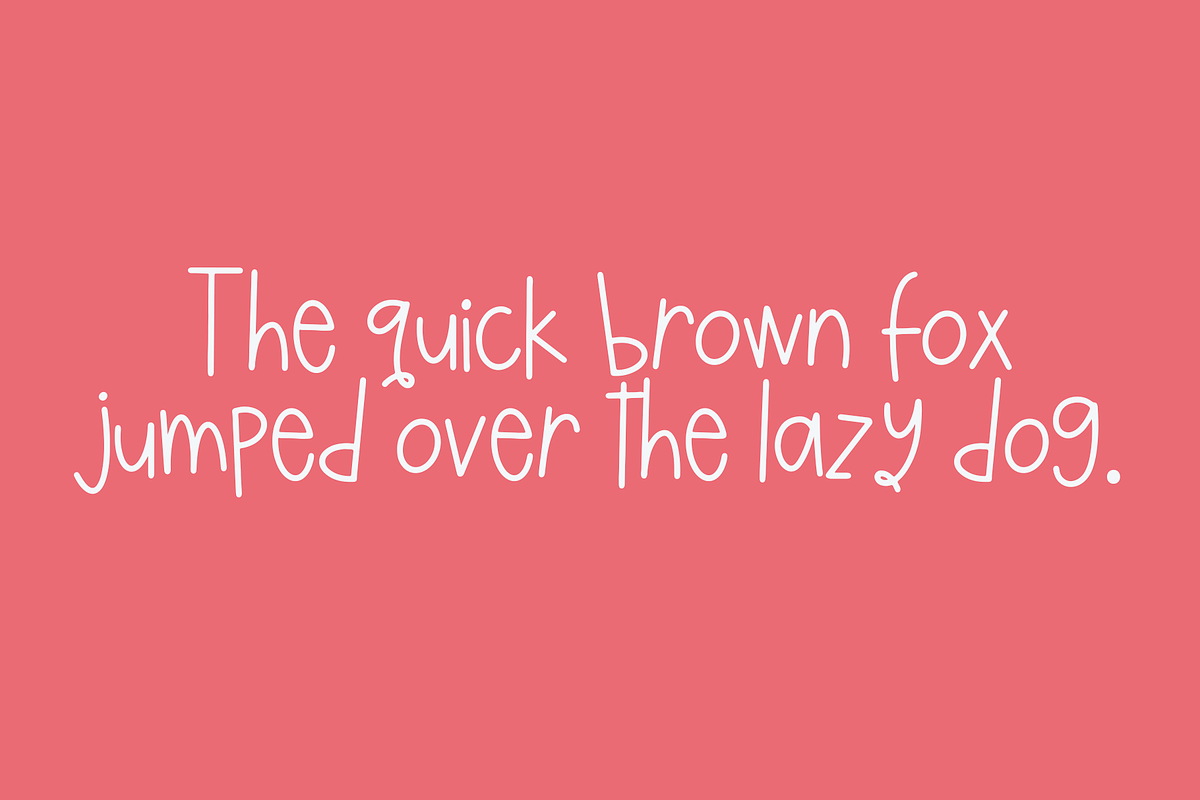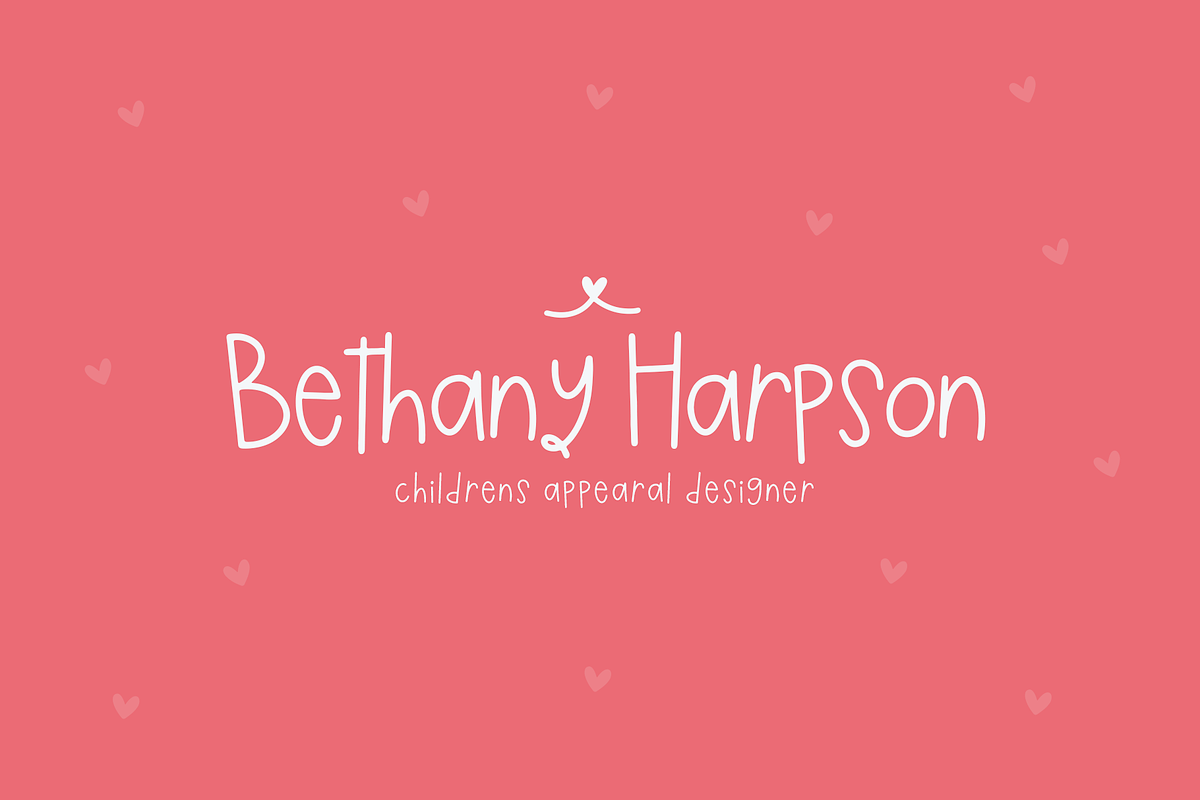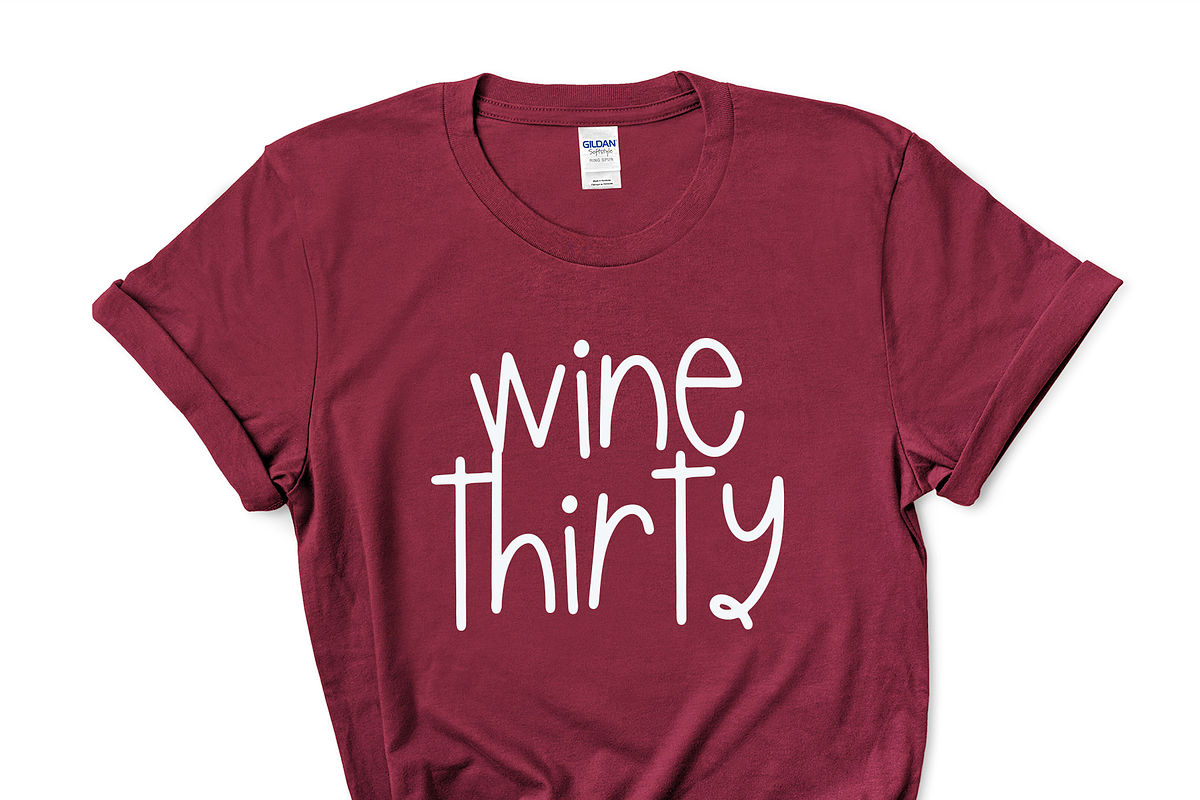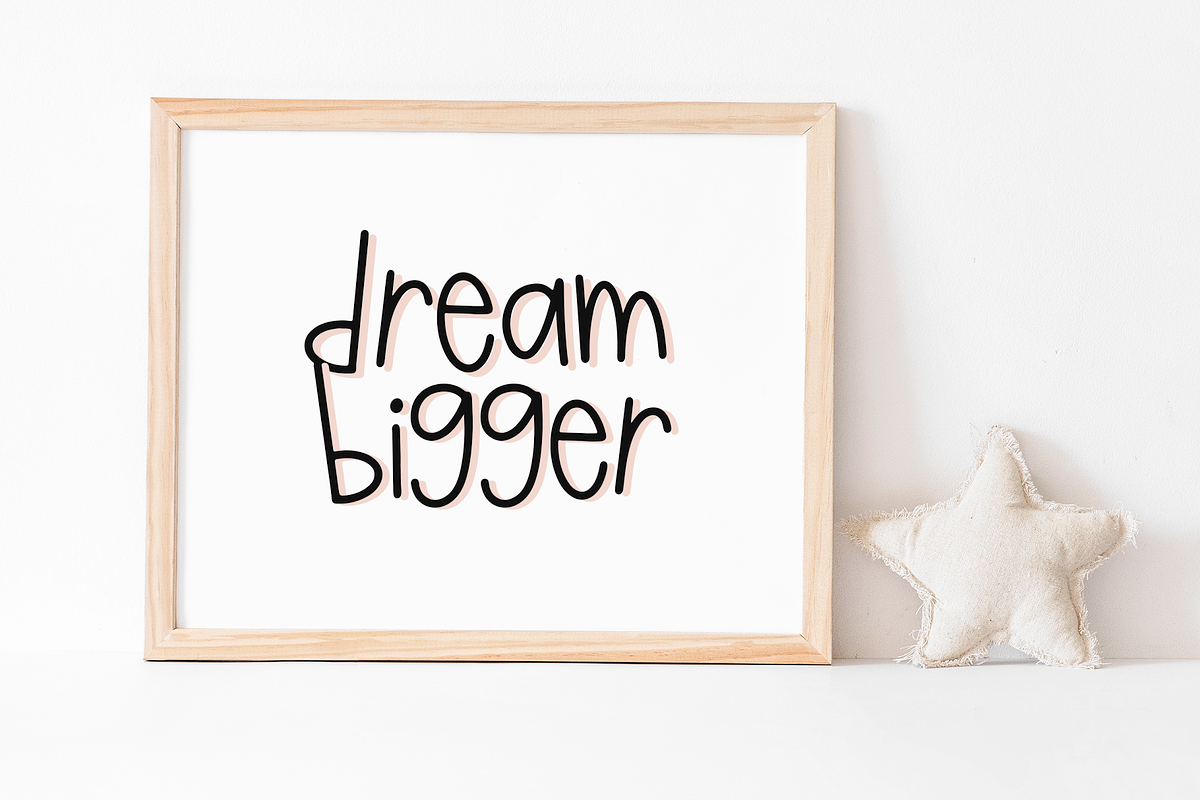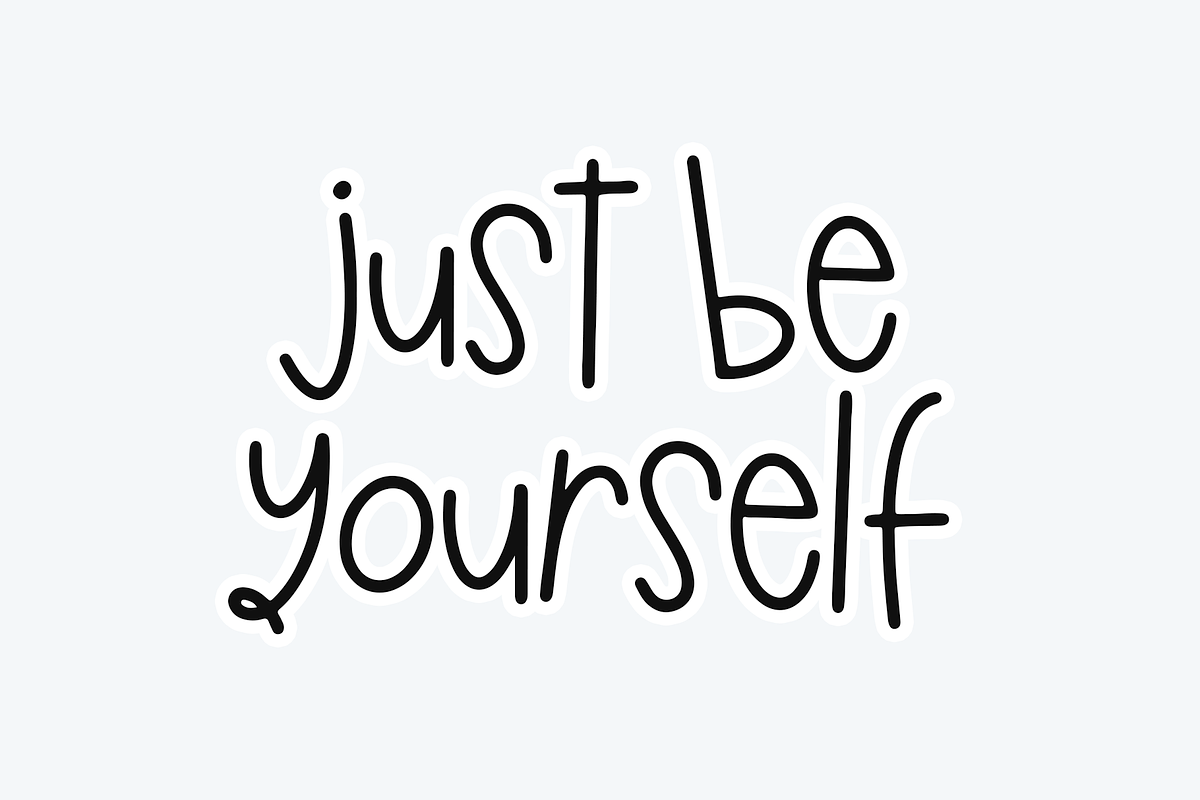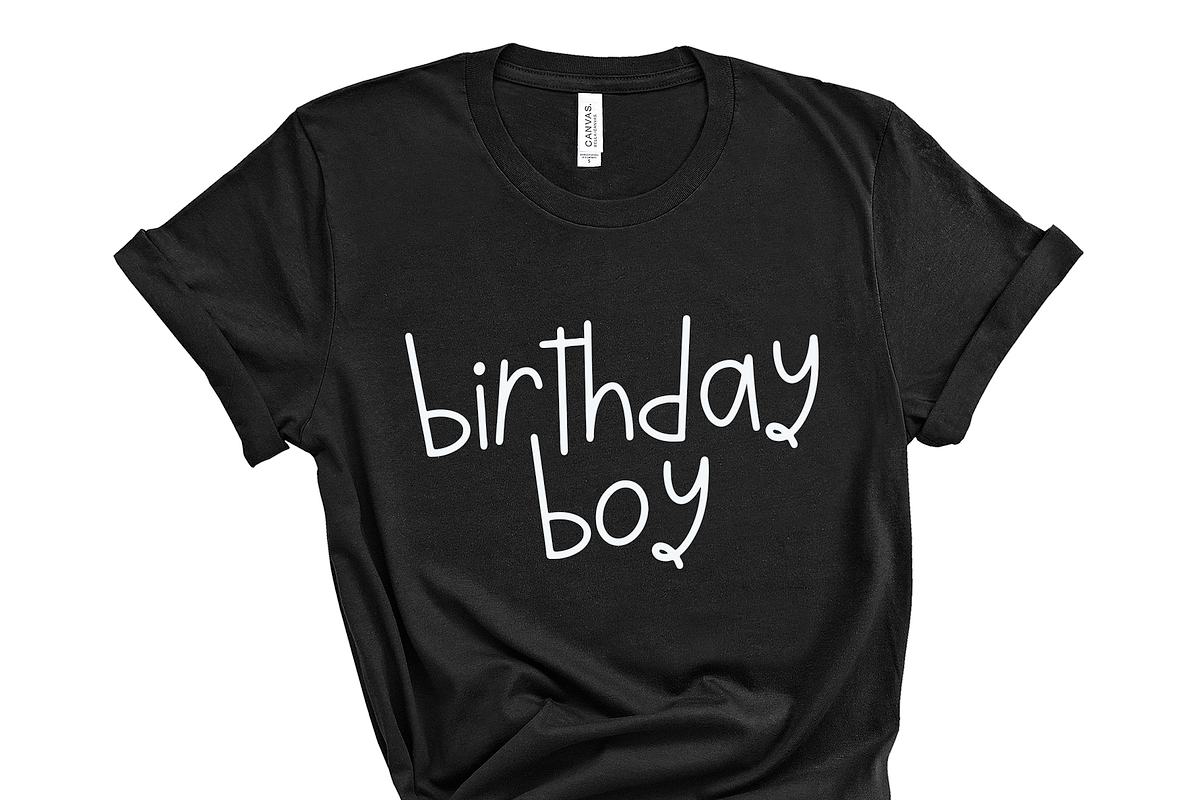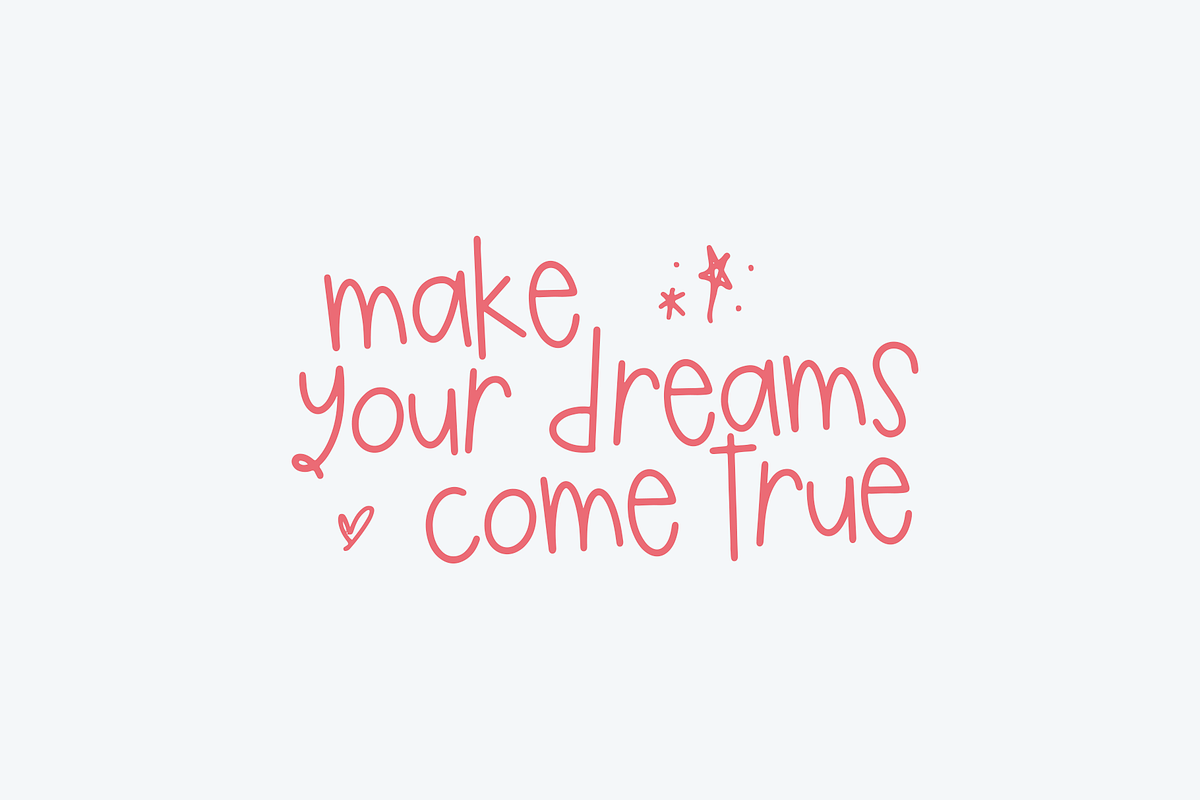
Kiwi Lemonade | Handwritten Font
Kiwi Lemonade is a fun and quirky handwritten font!
This font is perfect for branding, logos, svg files, shirts, signs, children's decor and more!
Kiwi Lemonade | Handwritten Font by KA Designs fits naturally into Branding, posters, packaging, typography.